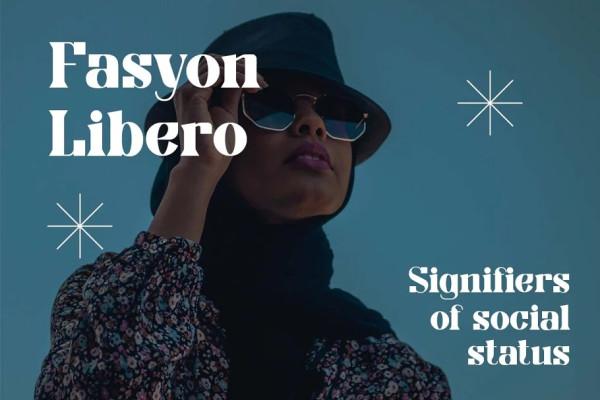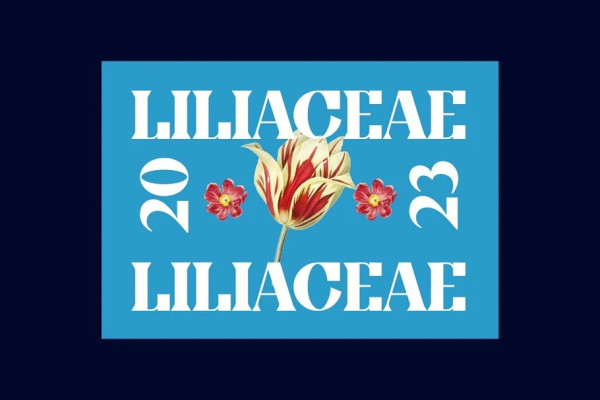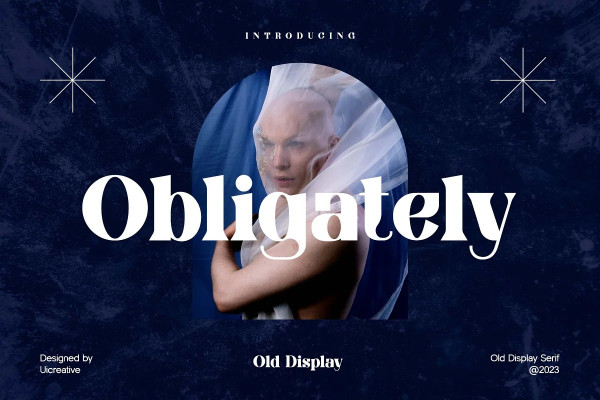
Obligately Font
Obligately Font – Old Display Serif Font. Modern Serif font that feels beautiful classy, elegant, and modern. This font is ideally suited for a wide variety of projects, such as signature, stationery, logo, wedding, typography quotes, magazine or book covers, website headers, clothing, branding, packaging design, and more. Also, fashion-related branding or editorial design displays both masculine and feminine qualities.